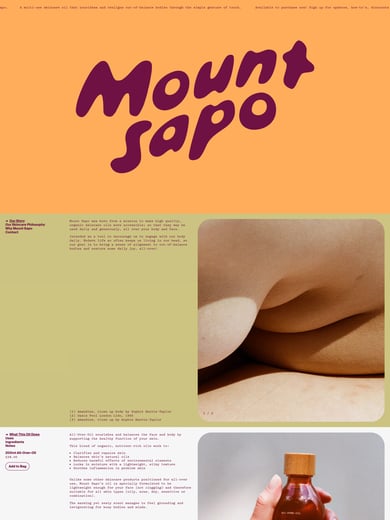
Pitch
Pitch evokes typewritten text without reproducing the defects of a typewriter. Its monospaced slab-serif forms bring a tactile, document-like rhythm to a page.